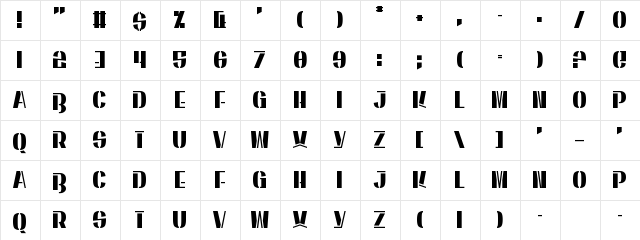
Energetic Star Regular
Design Context for Energetic Star Typeface
Energetic Star is a composed and adaptable typeface that performs quietly and consistently across a wide range of design contexts.